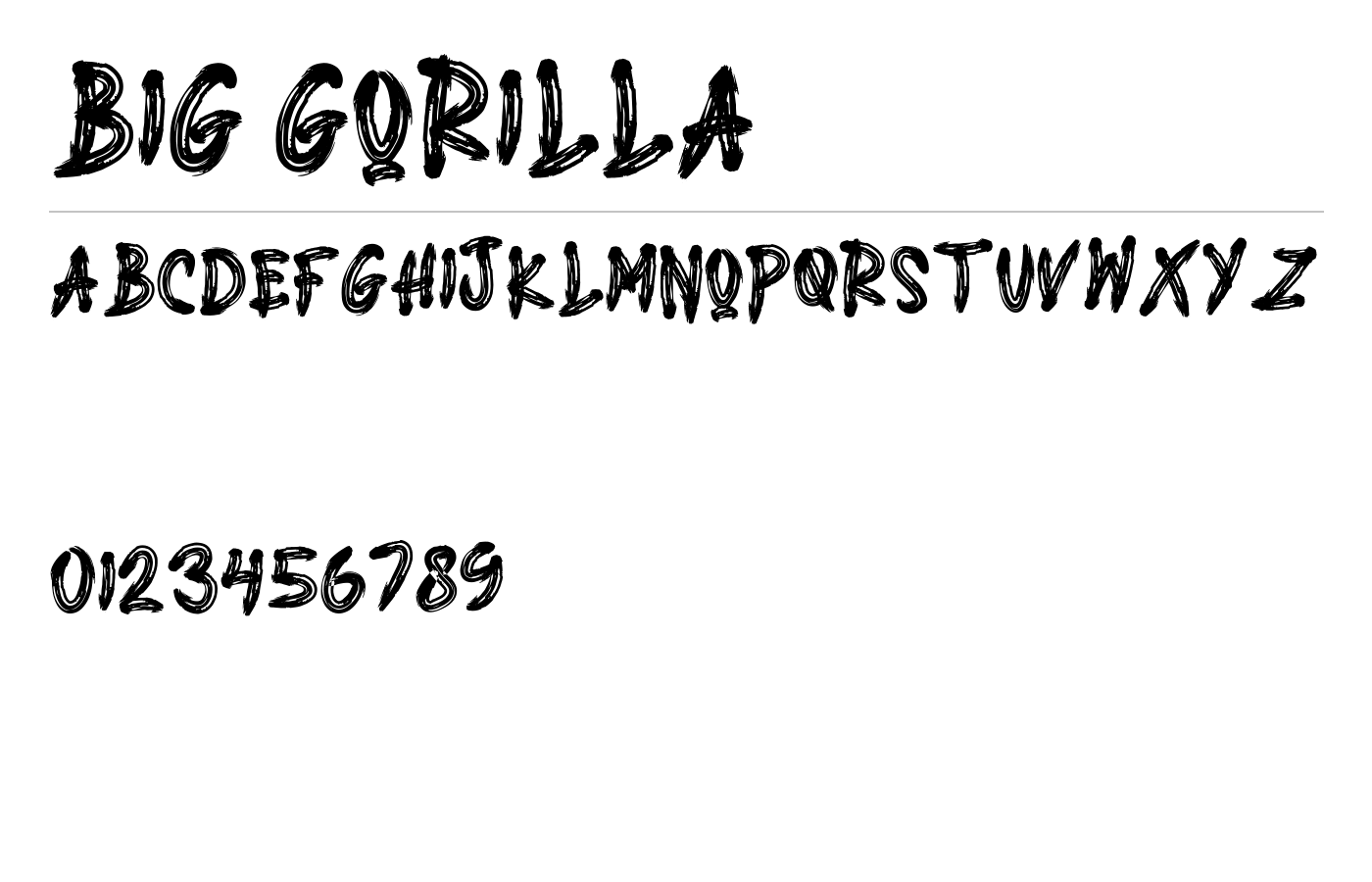
BIG GORILLA is a bold, textured display font with a rough, hand-drawn feel that gives it a raw, energetic personality. Its uneven strokes and irregular shapes make it perfect for eye-catching headlines, posters, and branding that demands a strong, playful, and slightly wild vibe. This font works well for creative projects that want to stand out with a distinct, expressive style.
BIG GORILLA Font